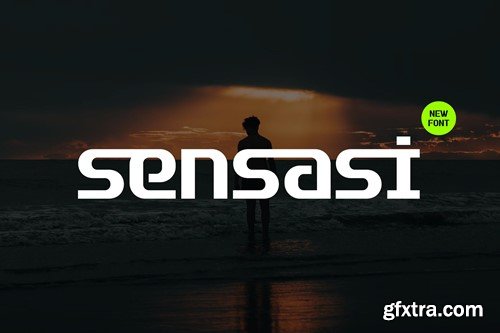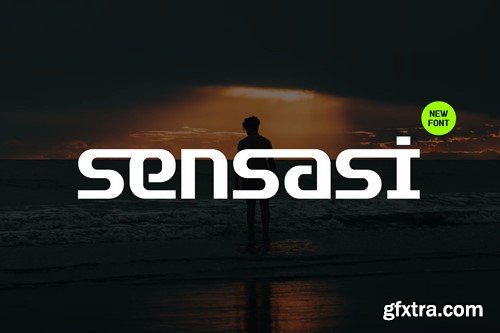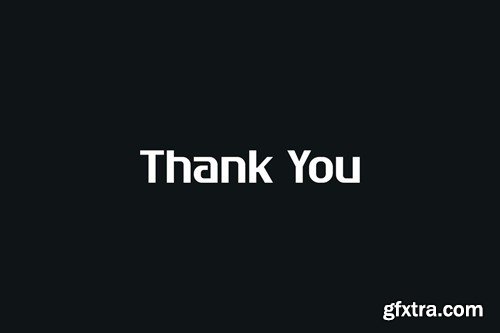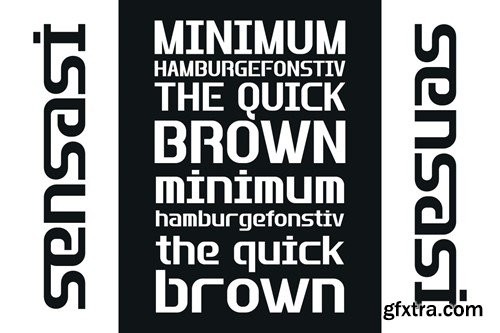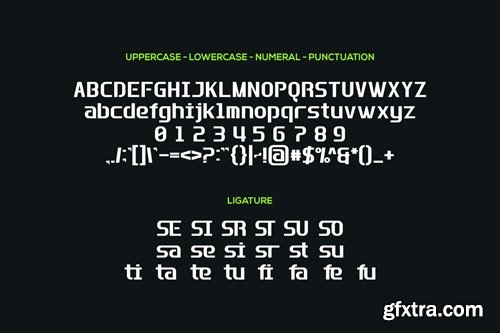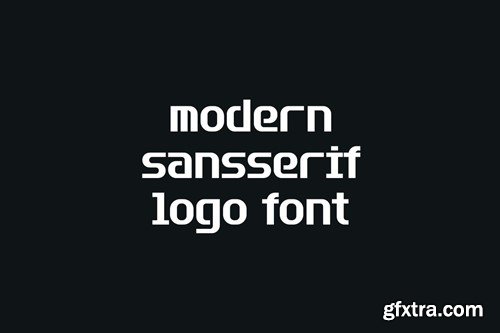
现代无衬线Logo字体 3YYJZK2
Sensasi - Modern Sans Serif Logo Font 3YYJZK2
Sensasi - Modern Sans Serif Logo Font
Introducing our new product Sensasi Font - Modern Sans Serif Logo Font
Sensasi Font- Modern Font is a bold and authentic display font. The font is suitable for any branding project like logo, t-shirt printing, esport, and many more. outstanding in a wide range of contexts.
• Sensasi Uppercase
• Sensasi Lowercase
• Sensasi Ligature